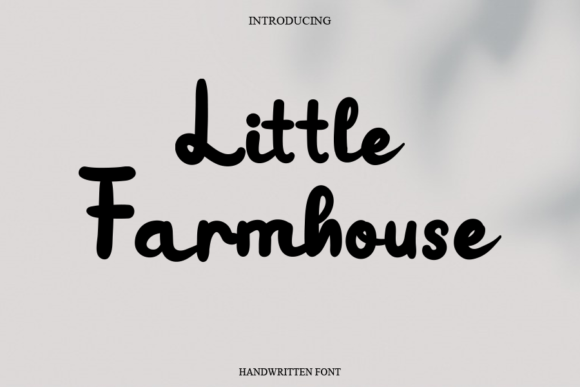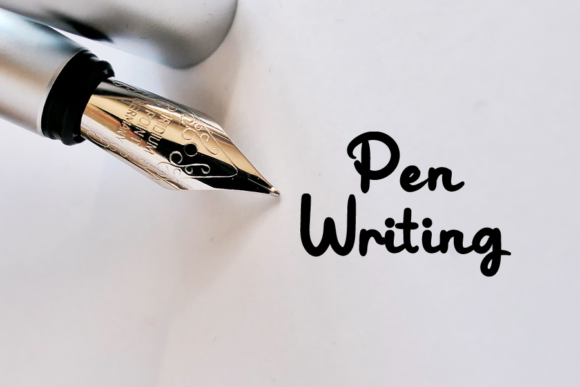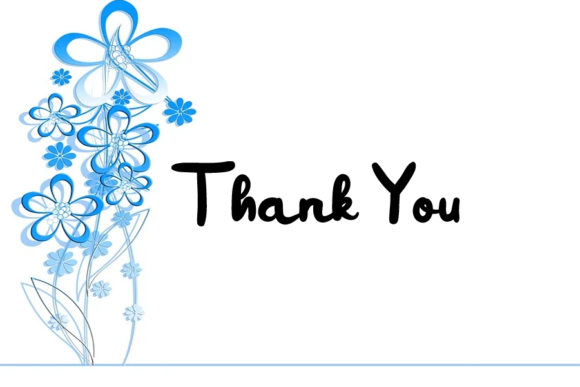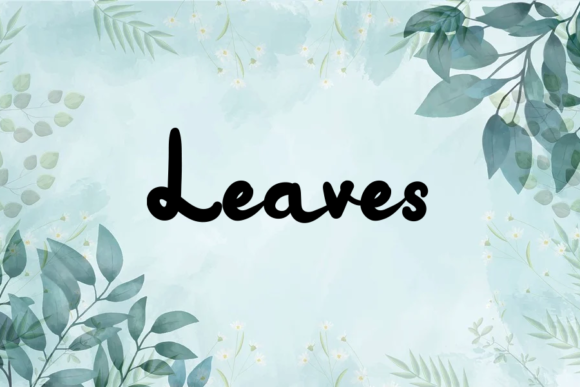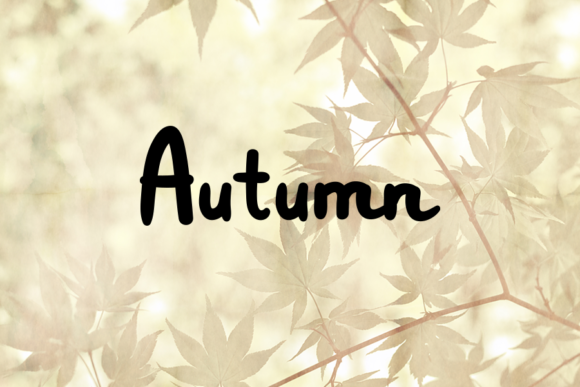
Little Farmhouse Font
About Little Farmhouse Font
Little Farmhouse is a charming and delicate script font that brings a sense of whimsy and playfulness to your designs. With its well-balanced characters and adorable style, this font is perfect for a wide range of applications, especially those related to cartoons, children’s games, and any design that calls for a touch of cuteness.
The clean and legible letterforms of Little Farmhouse ensure that your text remains readable, while the playful curves and details add a delightful and friendly vibe. The font’s delicate nature adds a touch of elegance and refinement, making it a versatile choice for various creative projects.
Whether you’re working on a children’s book, a logo for a kid’s brand, or even designing party invitations, Little Farmhouse will bring a sense of joy and cheerfulness to your designs. Its lovable characters and whimsical style capture the essence of childhood innocence and create a warm and inviting atmosphere.
The versatility of Little Farmhouse allows it to be paired with other fonts and design elements seamlessly. It can be used as a headline font to grab attention or as a supporting font to add a playful touch to your overall design. Its charm and versatility make it a valuable asset for any designer or creative individual.
Little Farmhouse is a font that evokes a sense of joy and nostalgia. Its cute and delicate style is sure to captivate both children and adults alike. By using Little Farmhouse, you can create designs that are not only visually appealing but also evoke positive emotions and leave a lasting impression.
In conclusion, Little Farmhouse is a cute and delicate script font that brings a playful and charming touch to your designs. With its well-balanced characters and versatile nature, it is a perfect choice for projects related to cartoons, children’s games, and any creation that requires a lovely and adorable touch. Add Little Farmhouse to your font collection and let it bring joy and warmth to your creative projects.